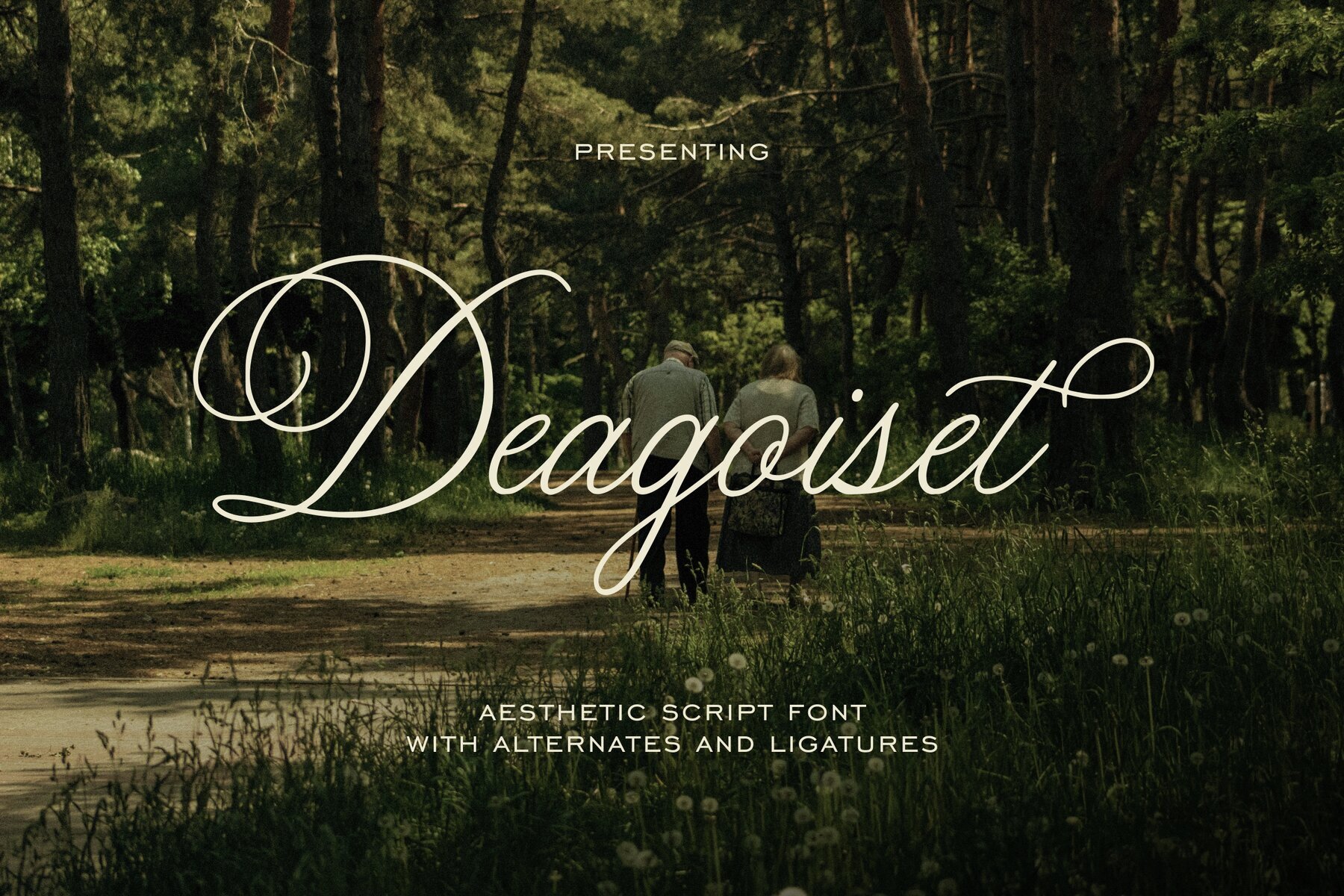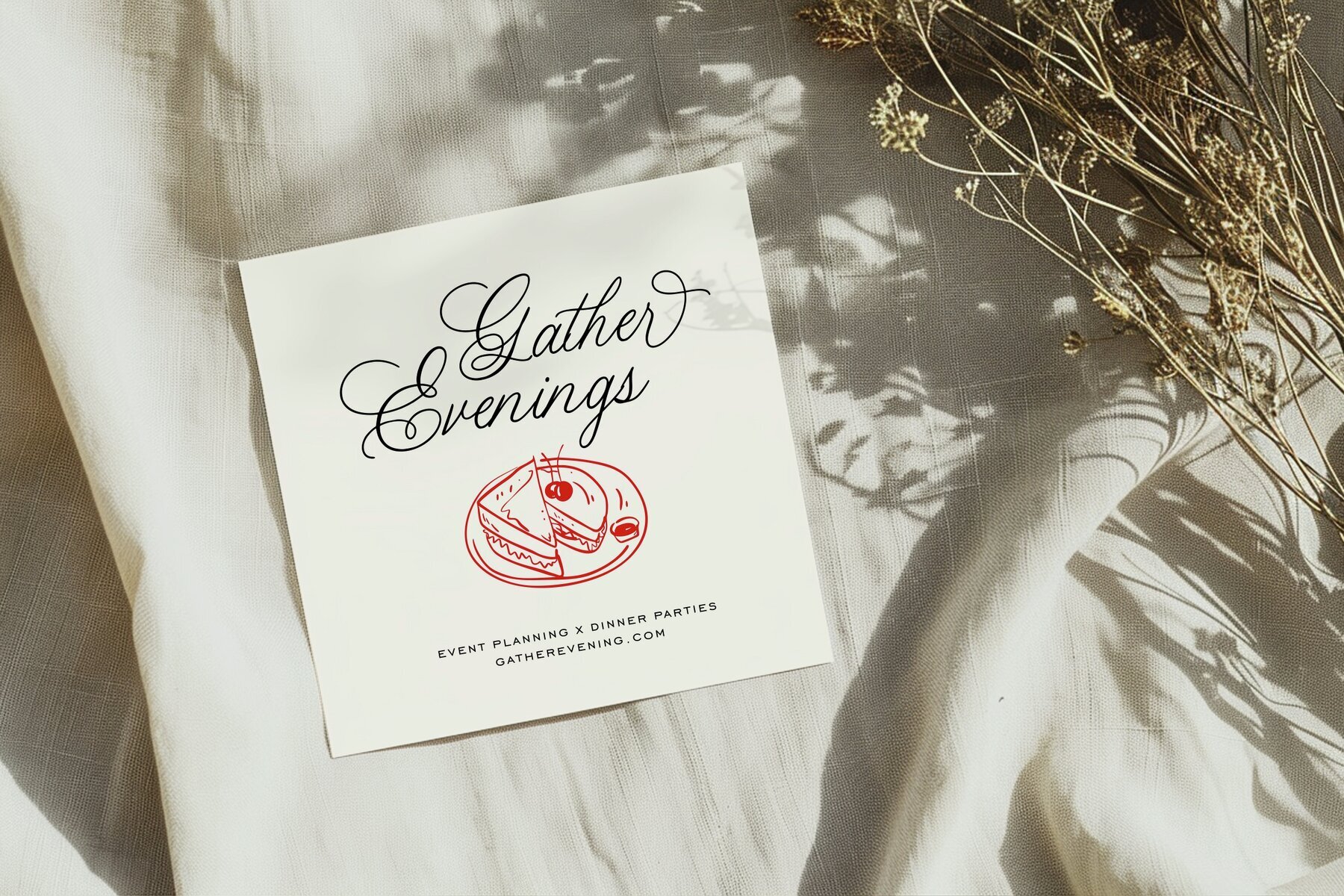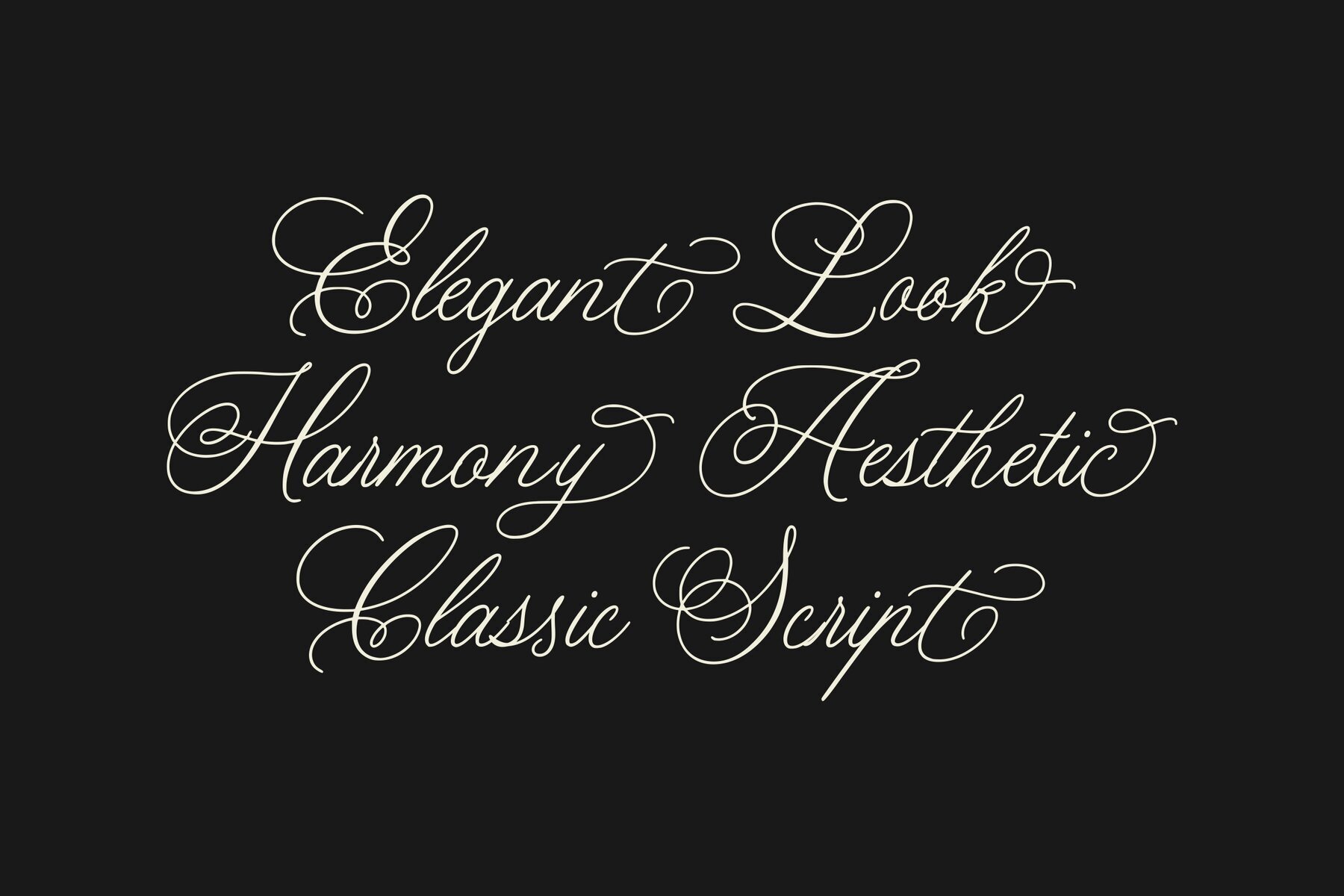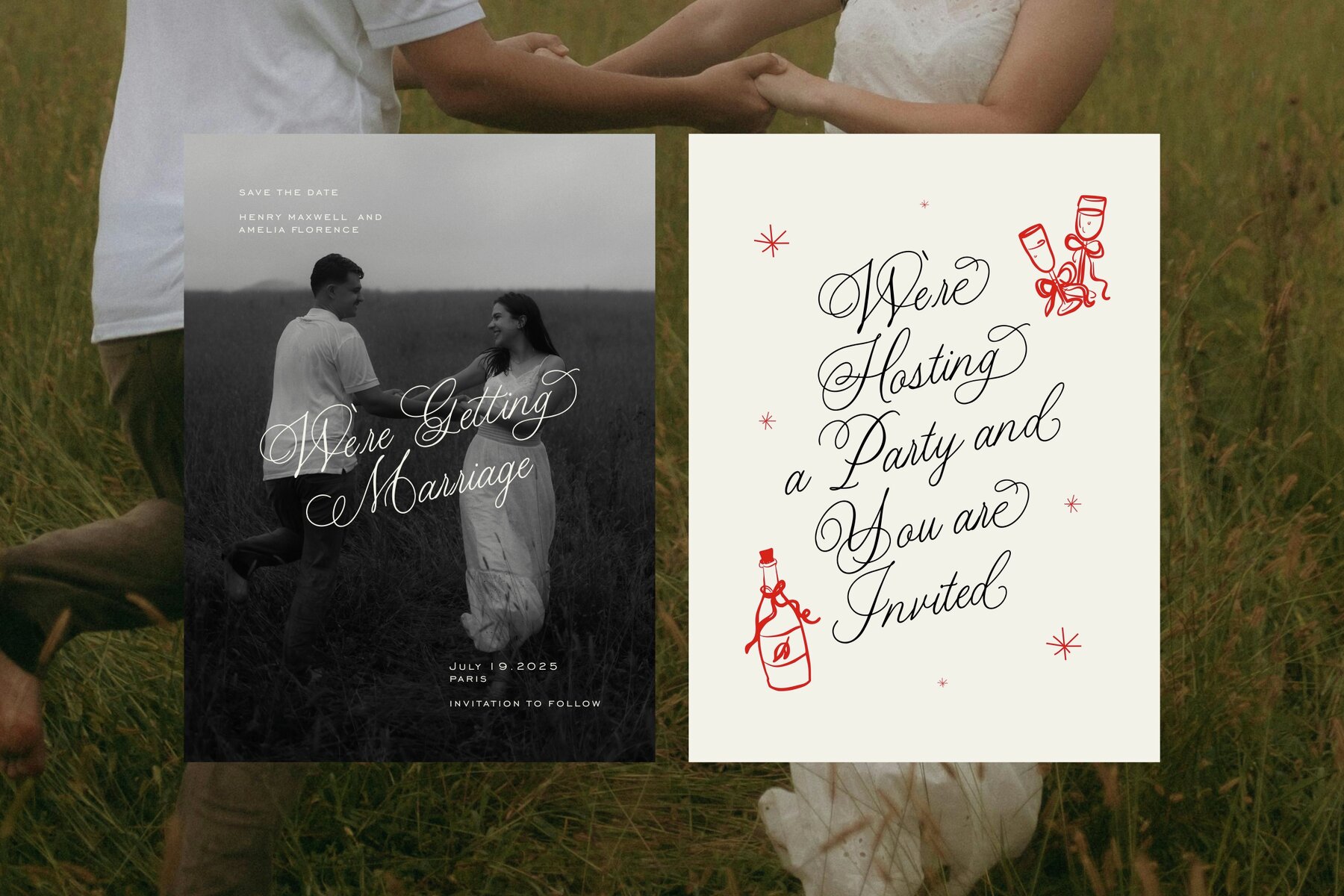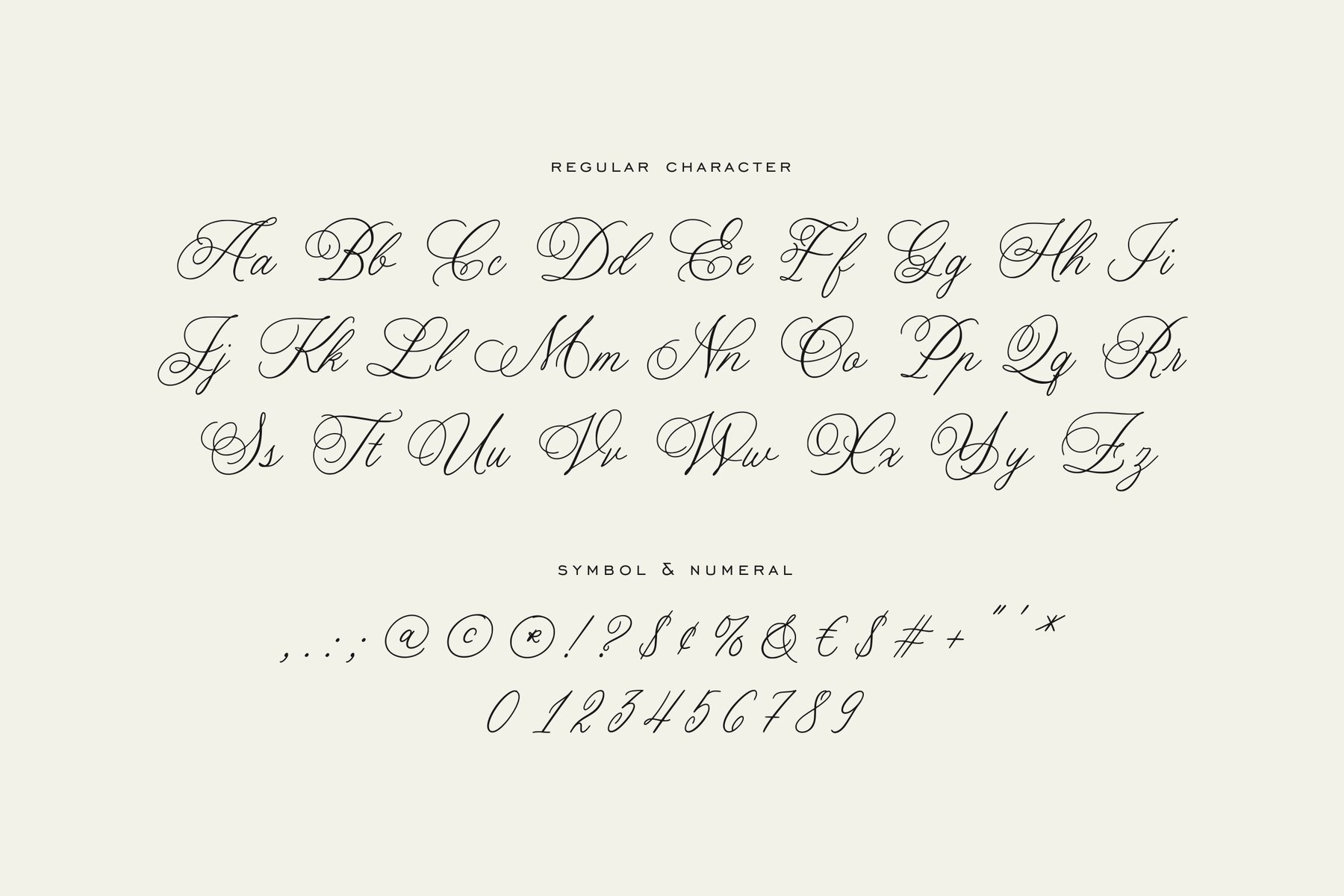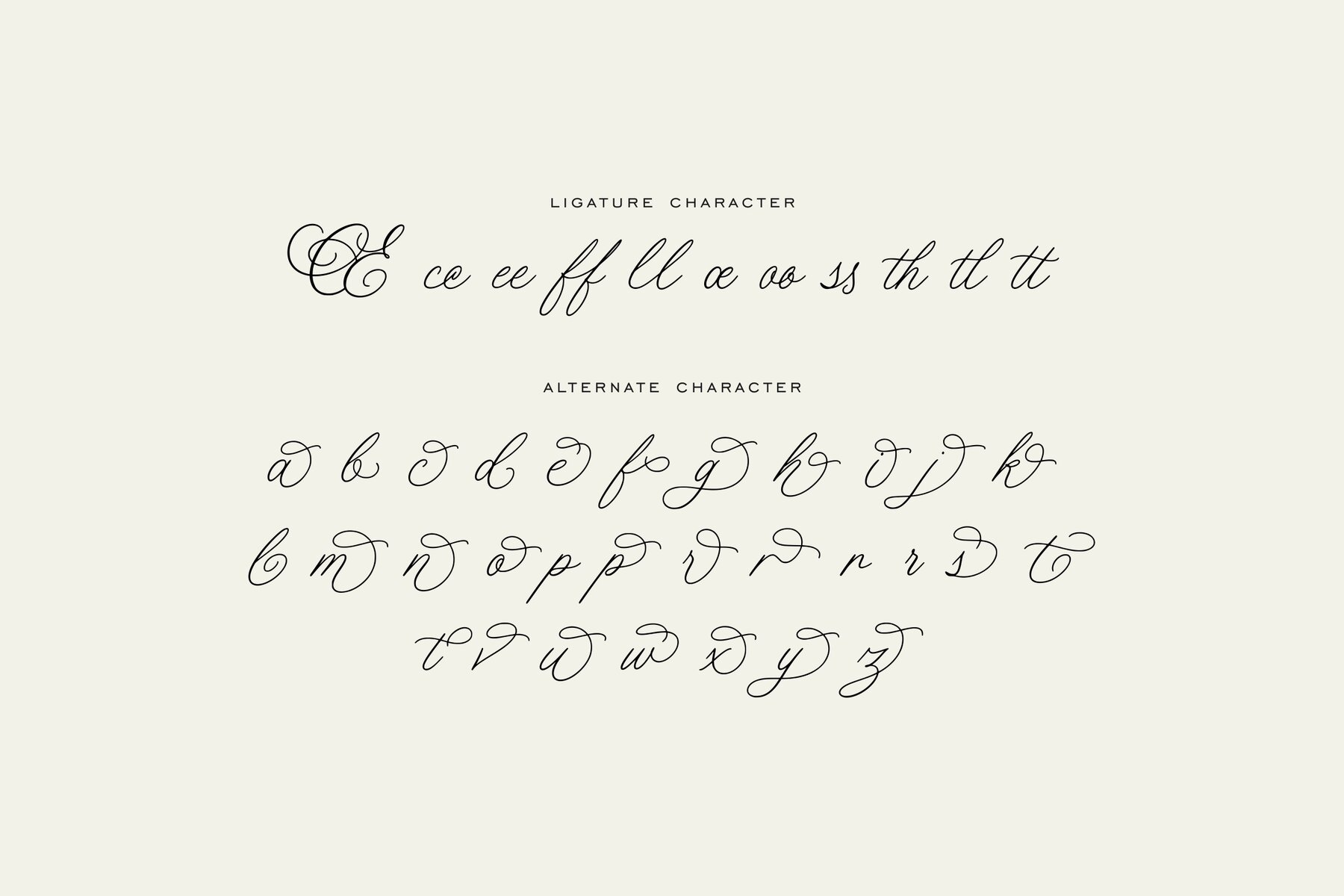
Deagoiset Font
Deagoiset Regular
Deagoiset stands out as a modern calligraphy script font that exudes a sense of classic beauty and understated sophistication. Its fluid letterforms, detailed with sweeping swashes and gentle curves, recall the artistry of hand-lettered correspondence. The design of Deagoiset brings a rhythmic harmony to text, enhancing projects that seek to balance ornamentation with readability. Designed for contexts where romance and style are paramount, Deagoiset performs admirably in luxury branding, wedding invitations, and high-end menus. The font’s dramatic character suits certificates and signage for cafes or boutique stores, while its delicate features are well suited for fashion lookbooks, signature logos, and product packaging—especially for jewelry or perfumes. Event stationery and watermarks also benefit from its distinctive script sensibility.Deagoiset: Refined Calligraphy Script With Flowing Elegance